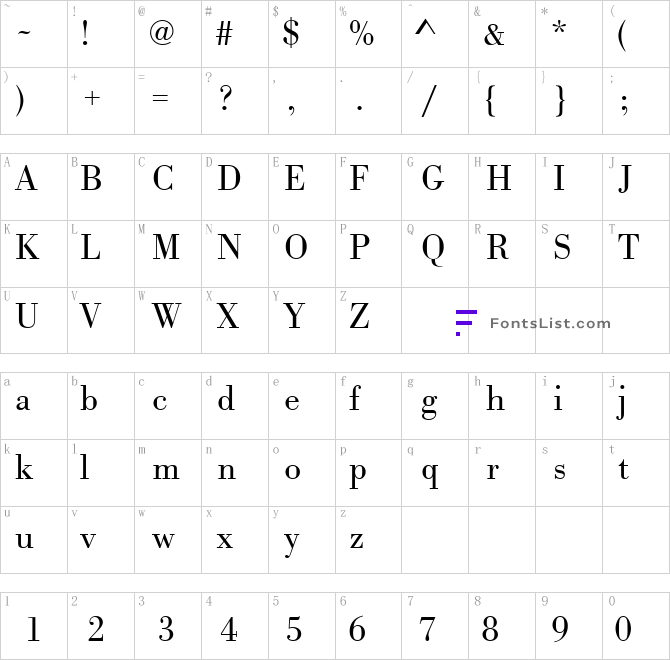
- Font Name:Becker Bodoni Light
Becker_Bodoni_Light.ttf is a very beautiful artistic font, Becker_Bodoni_Light.ttf is widely used in the design and printing of various books and pictures,Becker_Bodoni_Light.ttf has a strong visual impact,Becker_Bodoni_Light.ttf is a commonly used font in newspapers, magazines and books, and is used in posters, e-commerce Poster design, store design, logo design, font design and other fields.Becker_Bodoni_Light.